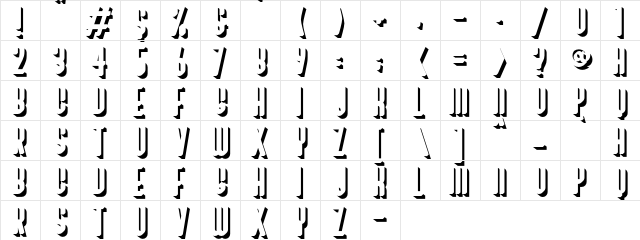
Bivoac Drop Shadow Demo Drop Shadow
Design Context for Bivoac Drop Shadow Demo Typeface
Bivoac Drop Shadow Demo is built around its visual character rather than neutral utility — its distinctive forms are designed to make an impression at display sizes.
Font Pairing: Pair with a clean neutral sans-serif for body copy to let Bivoac Drop Shadow Demo's character lead without overwhelming the composition.
Pro Tip: Treat Bivoac Drop Shadow Demo as the centrepiece of your typographic hierarchy. One strong heading set in a decorative face can carry an entire layout.